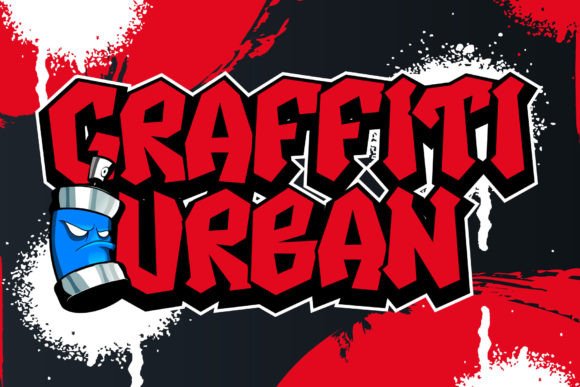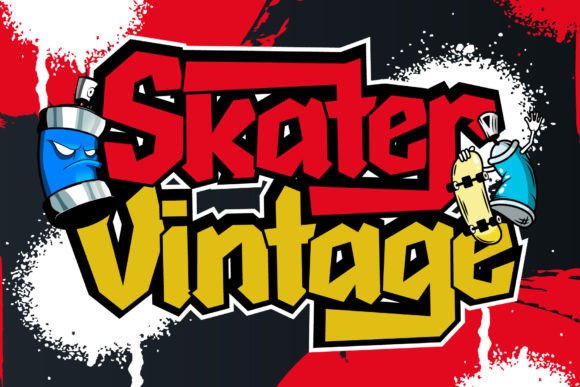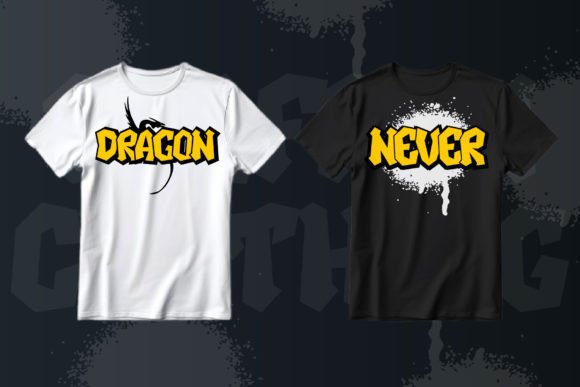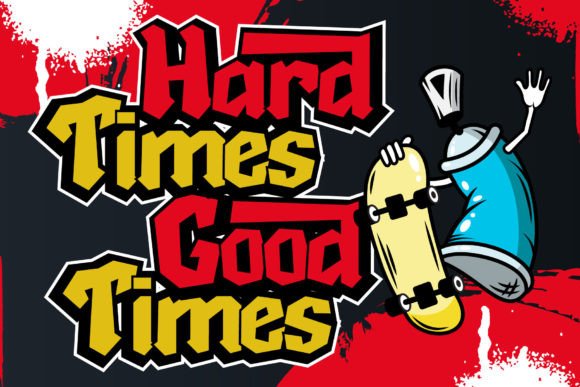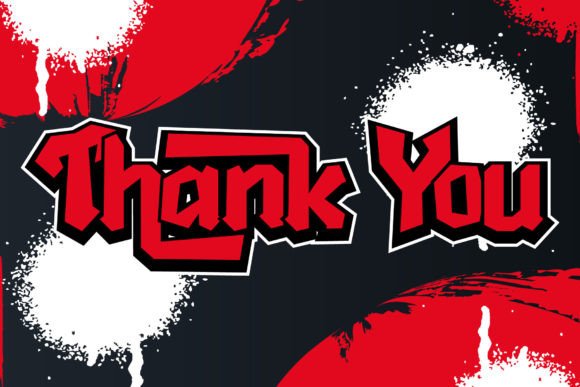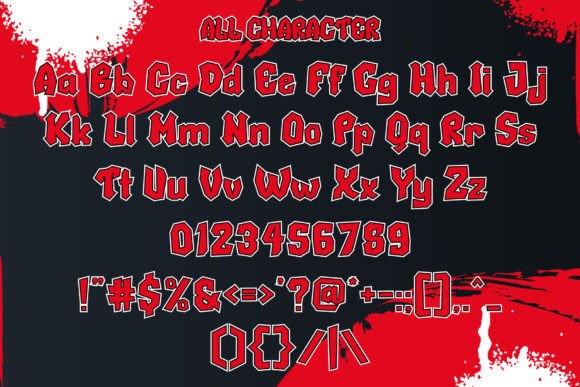
Unleash Your Creativity with Dark Grunge Font: The Ultimate Graffiti-Inspired Typeface
Are you a designer or crafter looking for a bold and eye-catching font to elevate your urban and casual designs? Look no further than the Dark Grunge Font, a chunky lettered display font that playfully evokes the iconic look and style of graffiti. In this article, we’ll dive into the world of Dark Grunge Font, exploring its features, uses, and benefits, and why it’s the perfect addition to your design arsenal.
What is Dark Grunge Font?
Dark Grunge Font is a bold and chunky lettered display font that captures the essence of graffiti art. Its rugged and edgy aesthetic makes it perfect for designs that require a bold statement. With its unique and playful style, Dark Grunge Font is sure to add a touch of urban grit to any design.
Features of Dark Grunge Font
So, what makes Dark Grunge Font so special? Here are some of its key features:
- Bold and Chunky Letters: Dark Grunge Font features bold and chunky letters that are perfect for making a statement.
- Graffiti-Inspired Style: The font’s graffiti-inspired style gives it a unique and edgy aesthetic.
- Urban and Casual Look: Dark Grunge Font is perfect for designs that require an urban and casual look.
- Highly Versatile: The font is suitable for a wide range of designs, including t-shirts, sportswear, logos, advertisements, clothing, and more.
Uses of Dark Grunge Font
Dark Grunge Font is a highly versatile font that can be used in a variety of designs. Here are some of the most popular uses of the font:
- T-Shirts and Apparel: Dark Grunge Font is perfect for designing bold and eye-catching t-shirts and apparel.
- Sportswear and Accessories: The font’s urban and casual look makes it ideal for designing sportswear and accessories.
- Logos and Branding: Dark Grunge Font can be used to create bold and memorable logos and branding materials.
- Advertisements and Posters: The font’s bold and chunky letters make it perfect for designing eye-catching advertisements and posters.
Benefits of Using Dark Grunge Font
So, why should you use Dark Grunge Font in your designs? Here are some of the benefits of using the font:
- Adds an Urban Touch: Dark Grunge Font adds an urban and casual touch to any design.
- Highly Legible: The font’s bold and chunky letters make it highly legible, even at small sizes.
- Unique and Playful Style: Dark Grunge Font’s unique and playful style sets it apart from other fonts.
Tips for Using Dark Grunge Font
Here are some tips for using Dark Grunge Font in your designs:
- Use it Boldly: Dark Grunge Font is perfect for making a bold statement, so don’t be afraid to use it in large sizes.
- Experiment with Colors: The font’s bold and chunky letters look great in a variety of colors, so experiment with different color schemes.
- Pair it with Other Fonts: Dark Grunge Font can be paired with other fonts to create a unique and interesting contrast.
| Font Name | Dark Grunge Font |